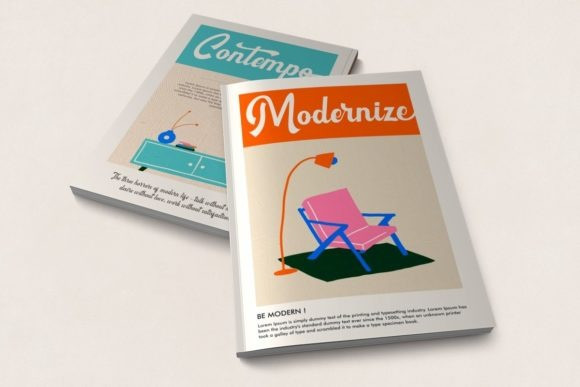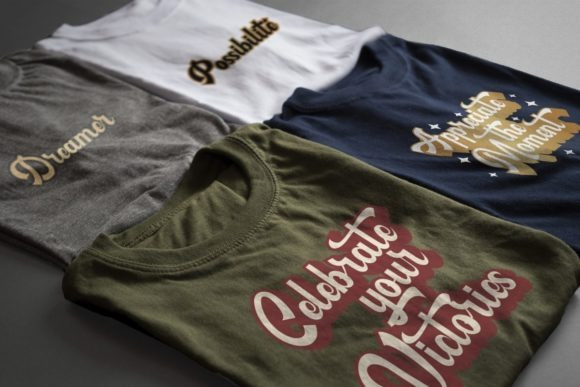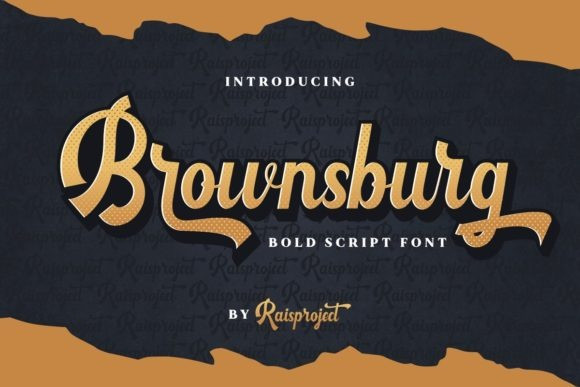
Brownsburg Font
Brownsburg Script Font is a bold script font with retro style. It is the best choice for creating eye catching logos, branding and quotes. Every letter has a unique and beautiful touch, which will make your design come alive! This font is PUA encoded which means you can access all of the amazing glyphs and ligatures with ease!